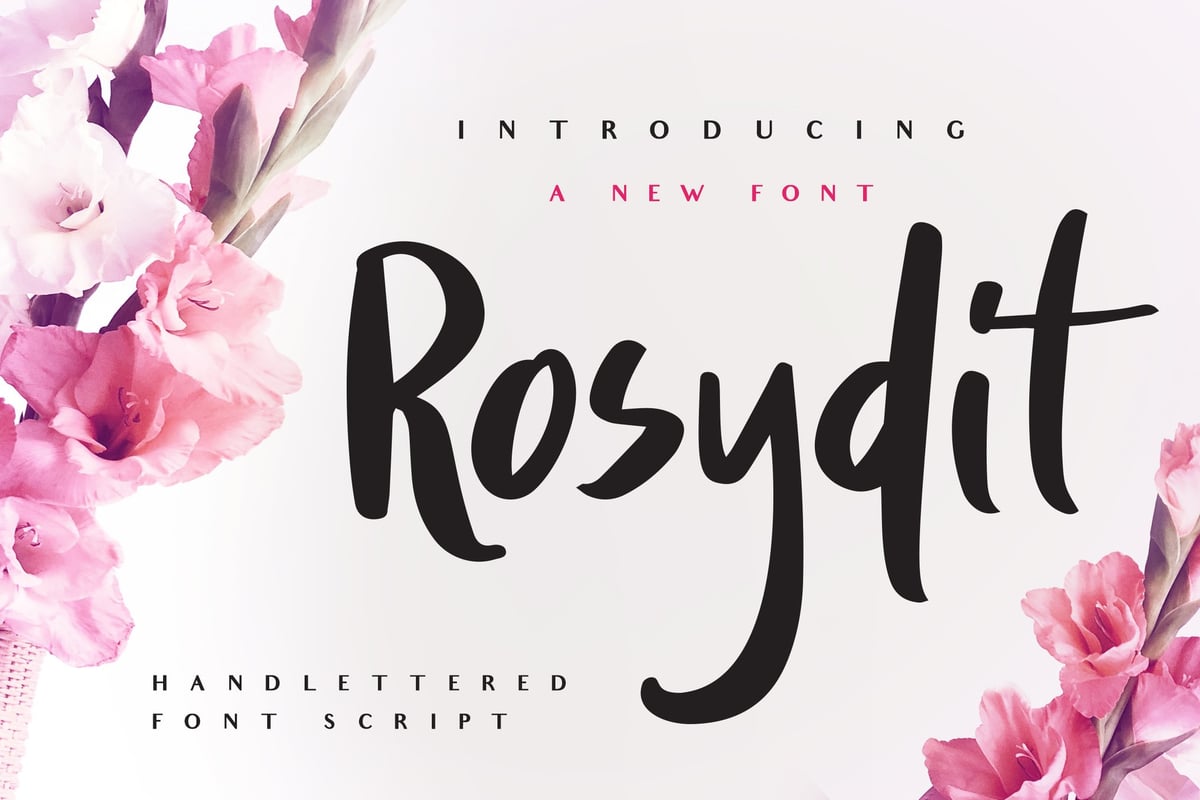
Free Rosydit - Handlettered Script Font
Rosydit is a stunning handlettered script font built for beautiful branding, invitations, and beyond.
With its natural, hand-drawn character and flowing letterforms, Rosydit brings warmth and personality to any design project. It's an ideal choice for greeting cards, branding materials, business cards, quote graphics, posters, and much more.